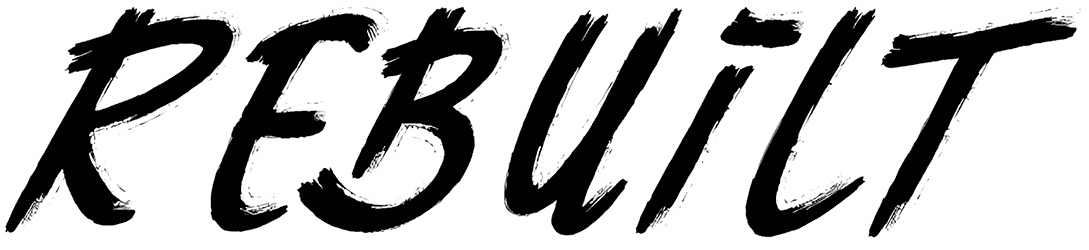
Scribble Scrawl Font
Need a punk look for your text? Scribble Scrawl can do the job perfectly. This brush font has trashy characters with a messy design that gives an edgy thriller to the viewers. You can use the font for informal punk headlines, scary movie titles, comic books, party and sale flyers, shop signs, and logo design. The alphabetical sets are all capitals.
Designed by: Hawtpixel